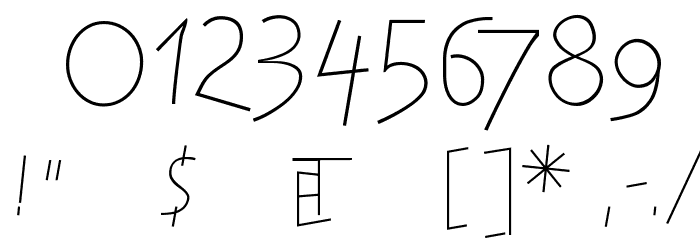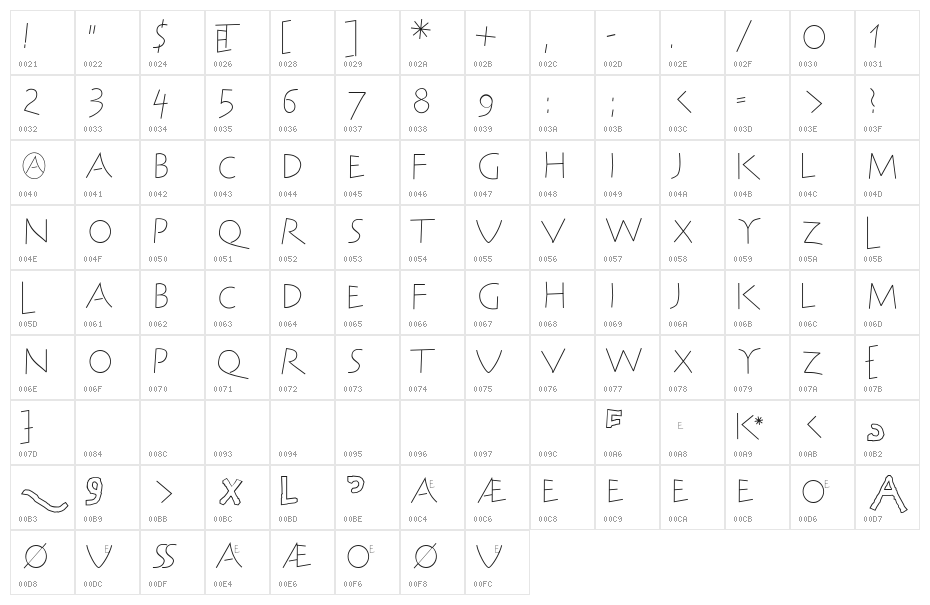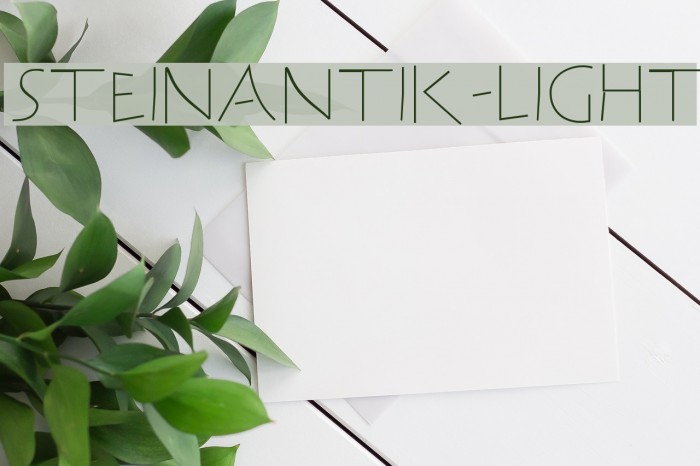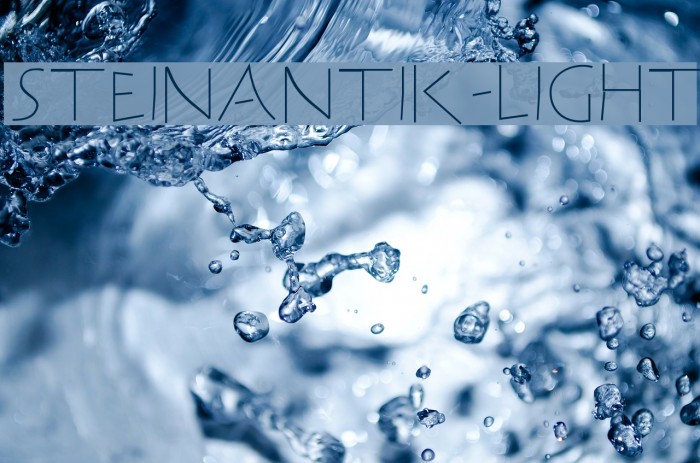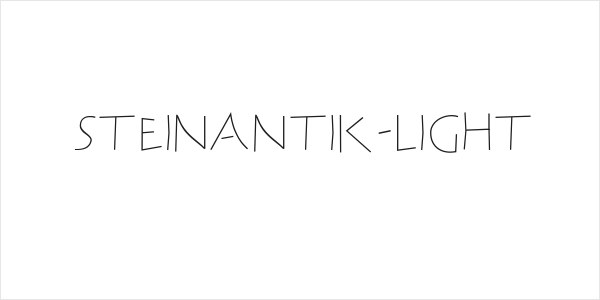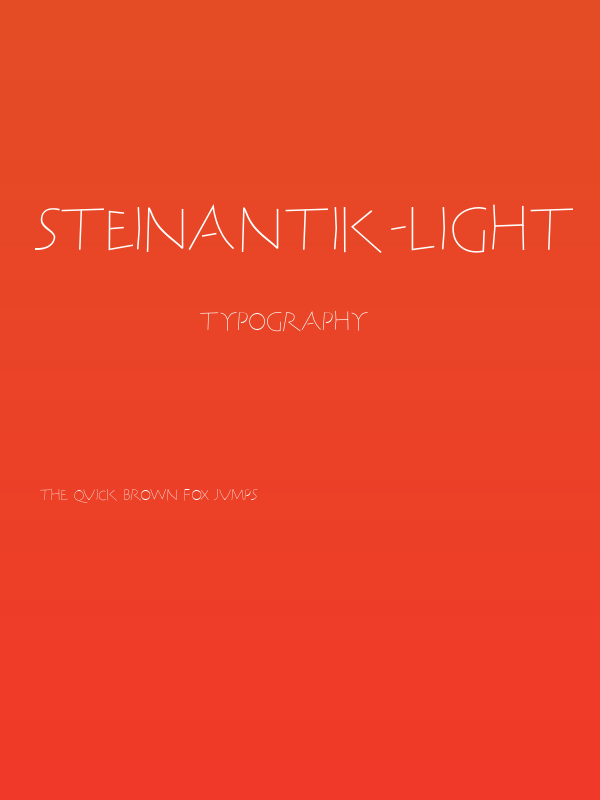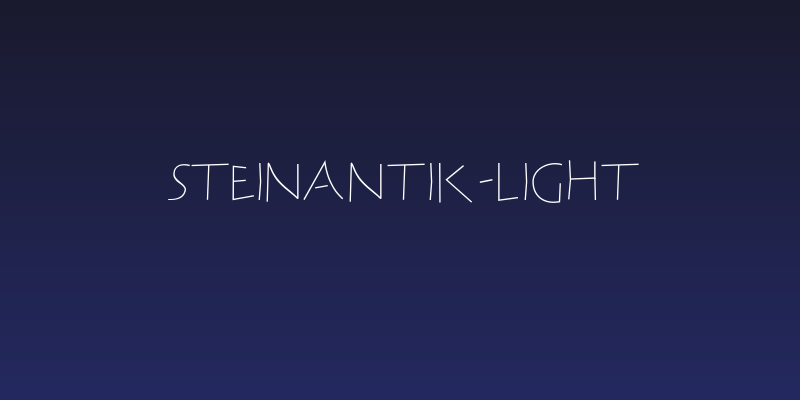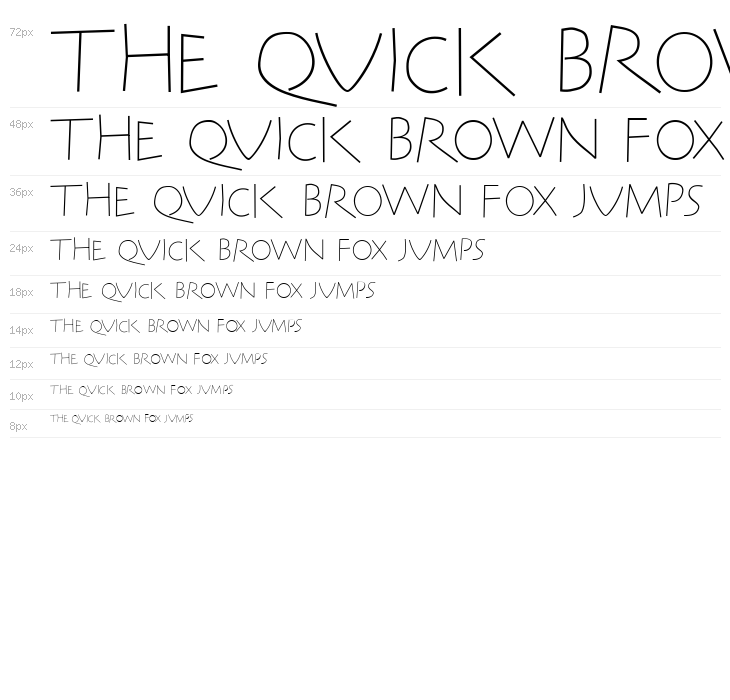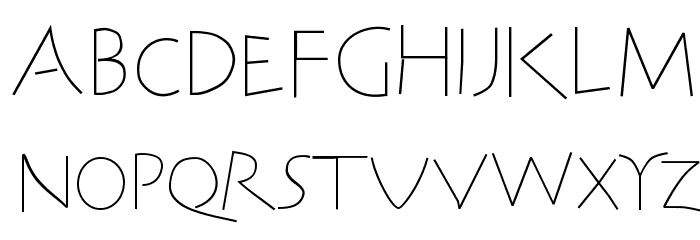
SteinAntik-Light Font
SteinAntik-Light Description
This font features a distinctive, elegant style with thin, elongated strokes that give it a refined and sophisticated appearance. The characters have a slight slant, adding a dynamic and modern touch. The uppercase letters are particularly striking, with sharp angles and clean lines that create a sense of movement and energy. The lowercase letters maintain this aesthetic, offering a cohesive look throughout the typeface. The numerals are uniquely styled, with a consistent thinness that matches the overall design. Special characters are included, maintaining the same elegant and modern feel. This font is perfect for projects that require a touch of elegance and modernity.
| Proposed Projects | Ideal for luxury branding, fashion magazines, elegant invitations, and modern logos. |